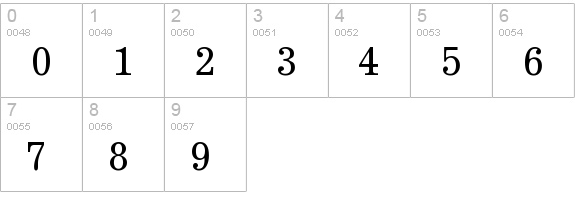
Exemplary-Regular Font Details
Exemplary-Regular is the standard, neutral variant in the Exemplary typeface family \xE2\x80\x94 well suited to general body text, paragraphs, and standard typographic work.
Exemplary-Regular font is a versatile and elegant typeface that exudes professionalism and sophistication. With its clean lines and balanced proportions, this font is perfect for a wide range of design projects, from branding to editorial design. The Exemplary-Regular font is free to download at FontsMarket.com, allowing you to easily incorporate this timeless and refined font into your work without any cost. Whether you're designing a logo, creating a brochure, or crafting a website, Exemplary-Regular font will add a touch of class and style to your designs. Download it today and elevate your typography game with this exceptional typeface.